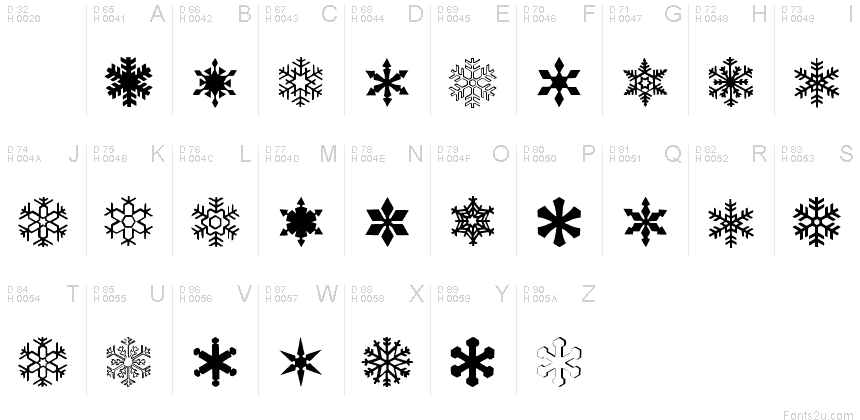
Ryp Sflake6 by Robyn Phillips of Skeldale House Treasures is a free nature dingbat font devoted to snowflake symbols. Its collection ranges from dense, solid crystals to airy outlined forms, with sharply branched arms and varied geometric centers.
Winter themes are its clearest territory. Holiday cards, seasonal packaging, event posters, and children's crafts can weave these varied flakes into frosty borders, scattered patterns, or central illustrations for schools and family events.